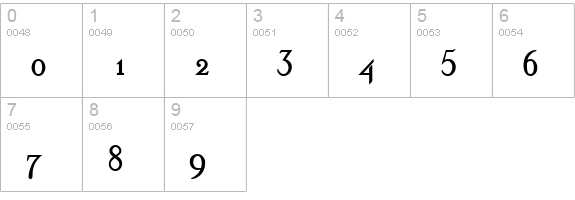
Dickens Bold is a strong, high-contrast variant in the Dickens typeface family \xE2\x80\x94 well suited to headlines, attention-grabbing titles, and strong calls-to-action.
Introducing Dickens Bold font, a timeless and elegant typeface that exudes sophistication and charm. Its bold and striking design makes it perfect for headlines, titles, and other eye-catching text. With its classic and versatile style, Dickens Bold font adds a touch of elegance to any design project. The best part? Dickens Bold font is available for free download at FontsMarket.com. Now you can elevate your designs with this premium font without having to spend a dime. Whether you're working on a branding project, poster design, or any other creative endeavor, Dickens Bold font is sure to make a lasting impression. Download it today and see the difference it can make in your projects.